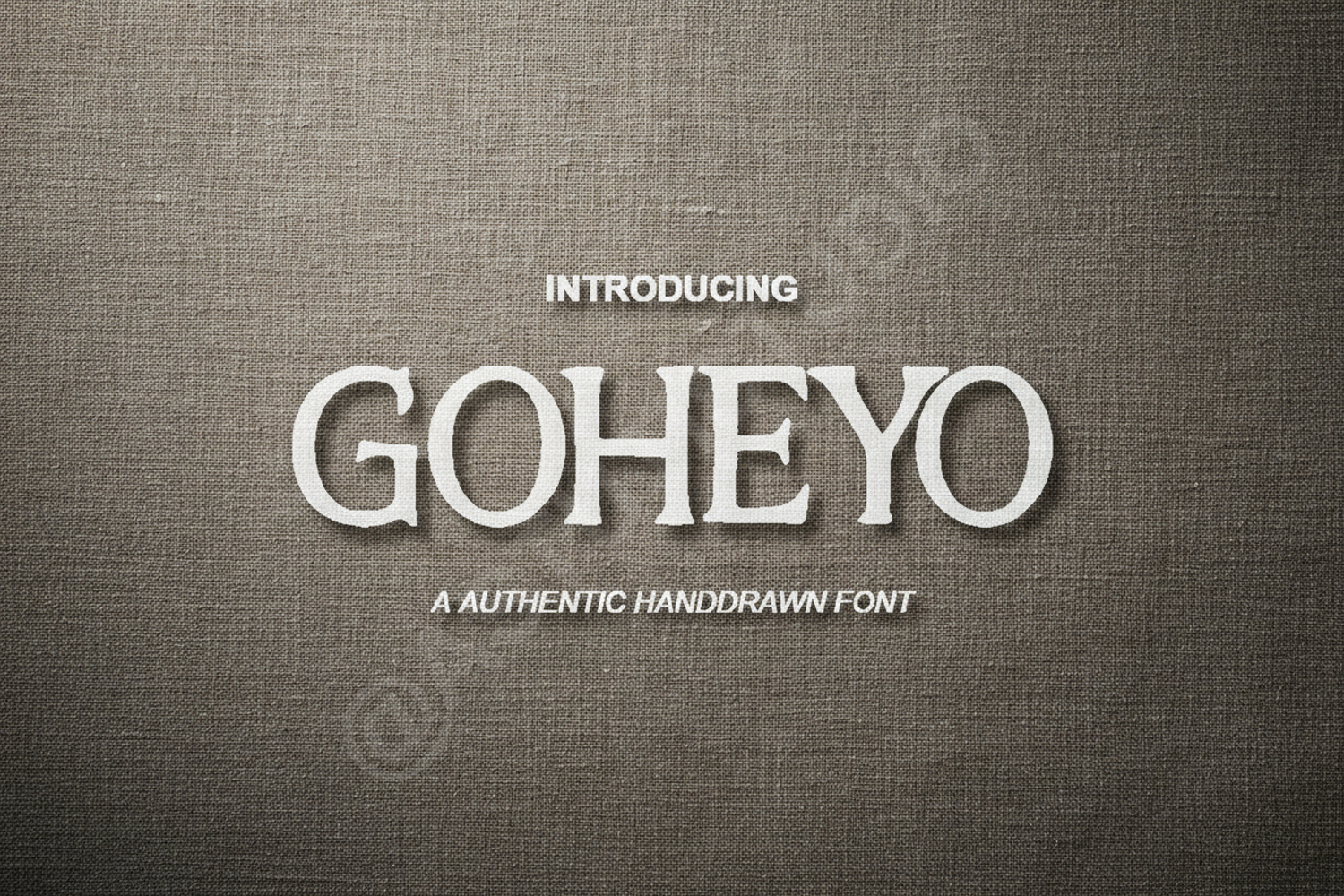
Goheyo - Modern Elegant Display Sans Serif
Goheyo
Goheyo is a premium display typeface designed to bring a touch of modern sophistication to your creative projects. With its clean lines and balanced proportions, this font offers a perfect blend of contemporary style and timeless elegance. Whether you are working on high-end branding or minimalist editorial layouts, Goheyo provides the versatility needed to make your designs stand out.
- Standard English character set
- Comprehensive Numerals and Punctuation
- Multilingual support for global accessibility
- Professional Branding and Visual Identity
- High-end Editorial and Magazine Layouts
- Engaging Social Media Graphics and Marketing
- Modern Wedding Invitations and Stationery
- Minimalist Logo Design and Typography
- Impactful Website Headers and UI Design